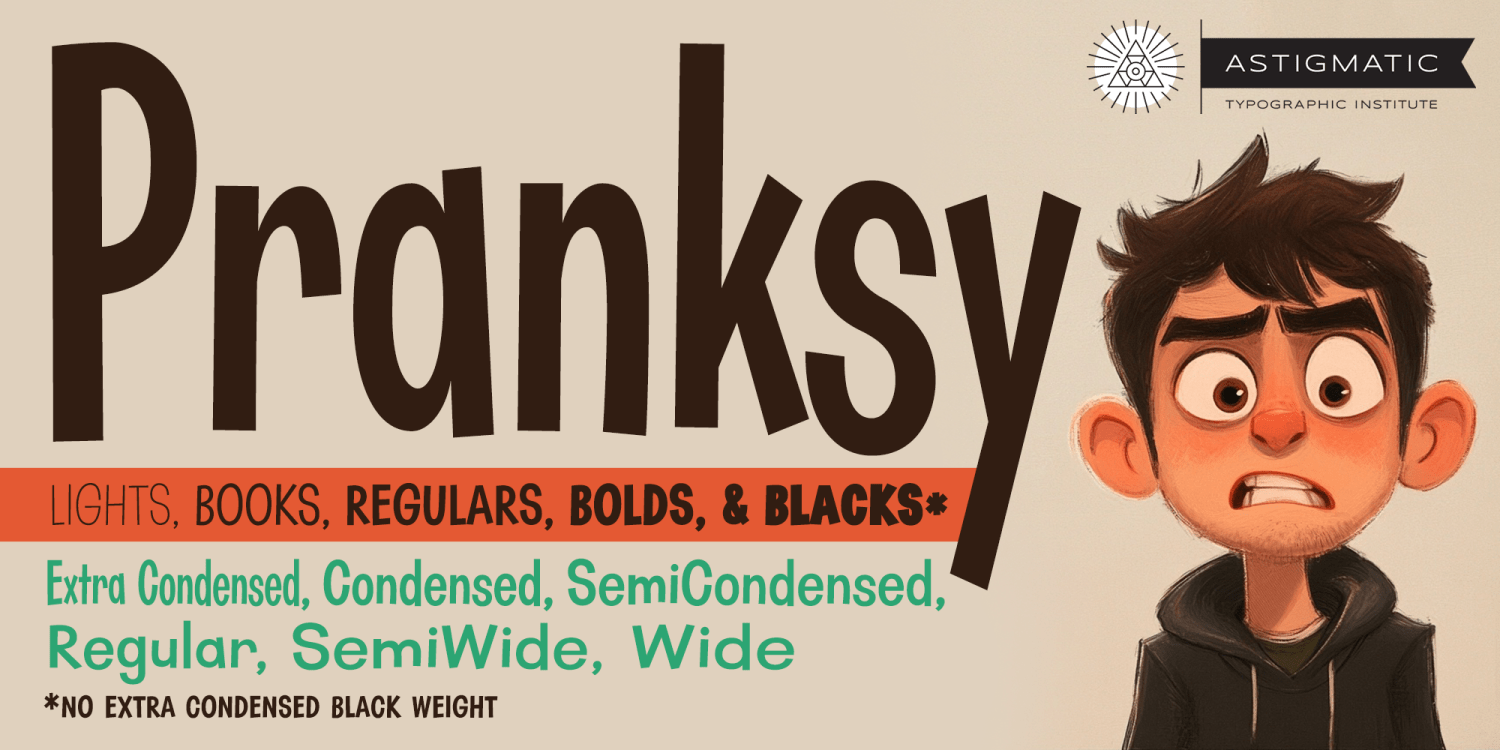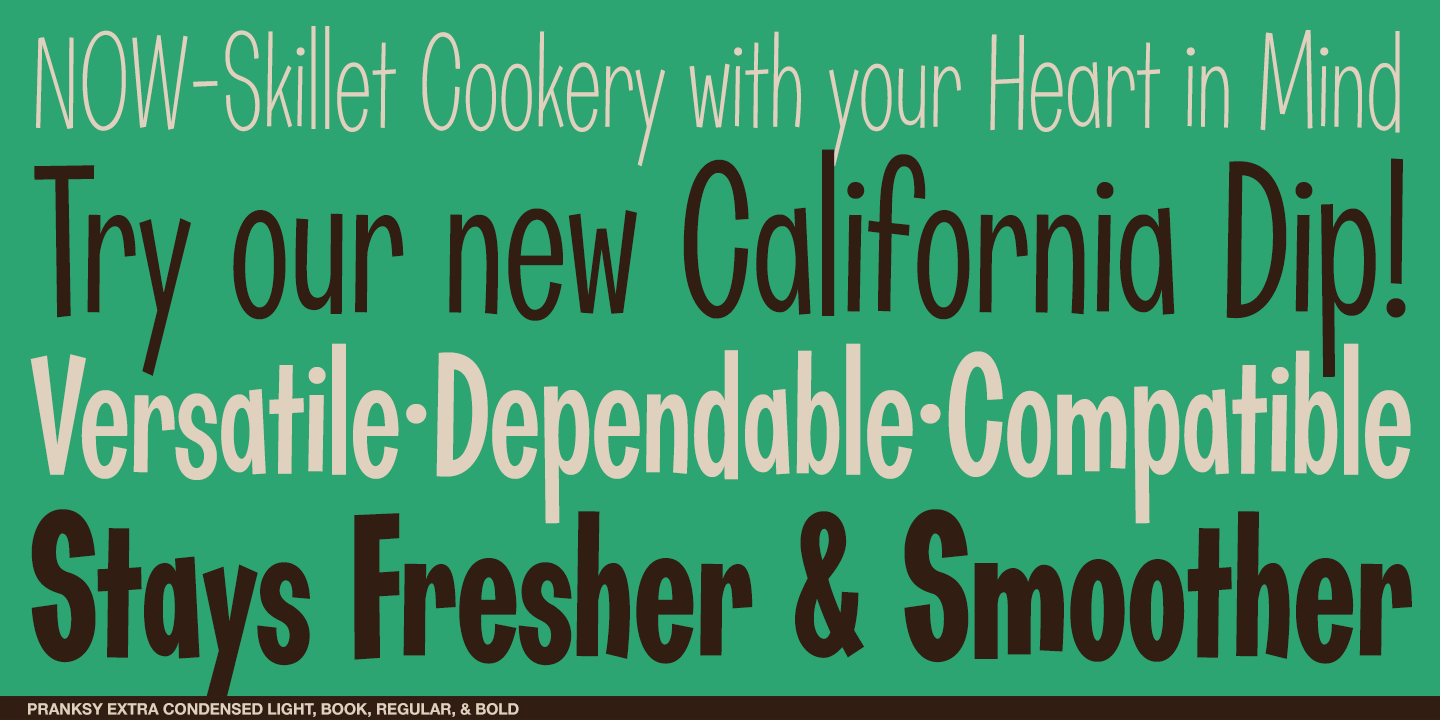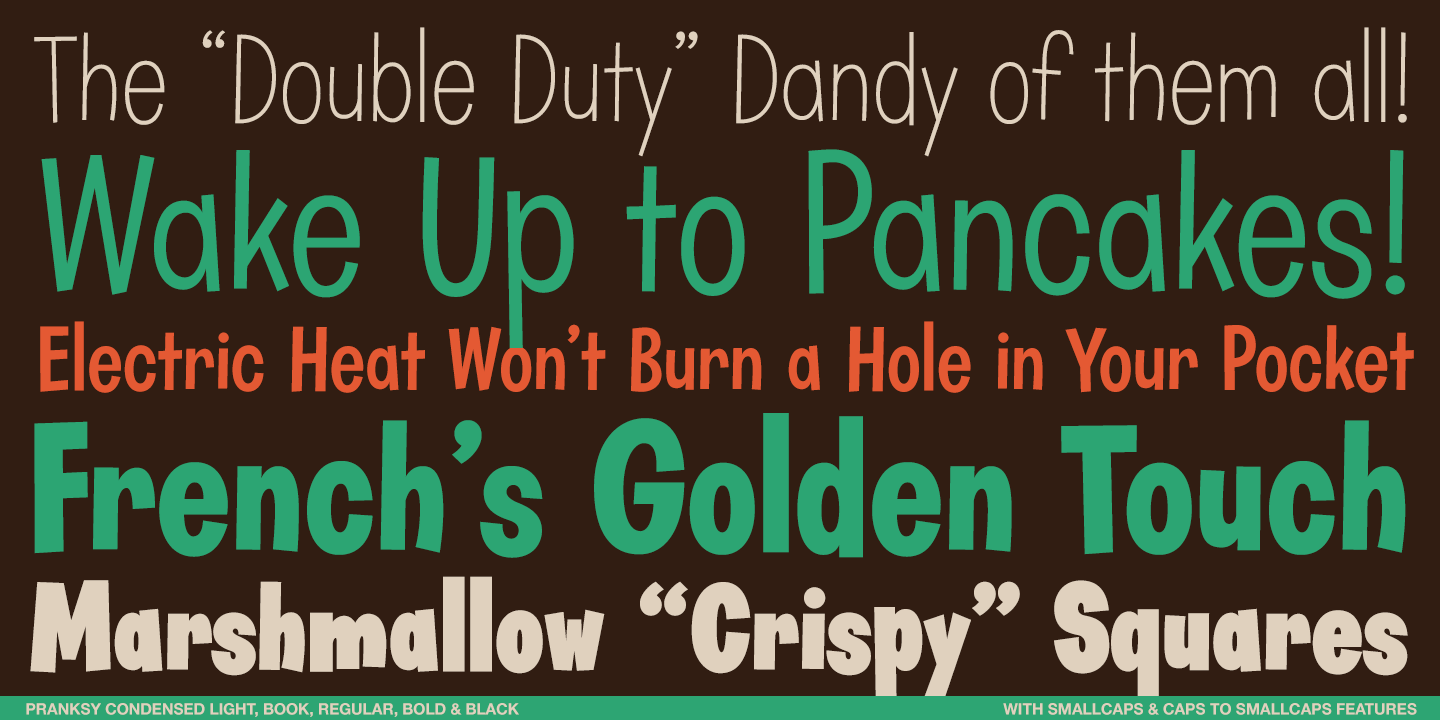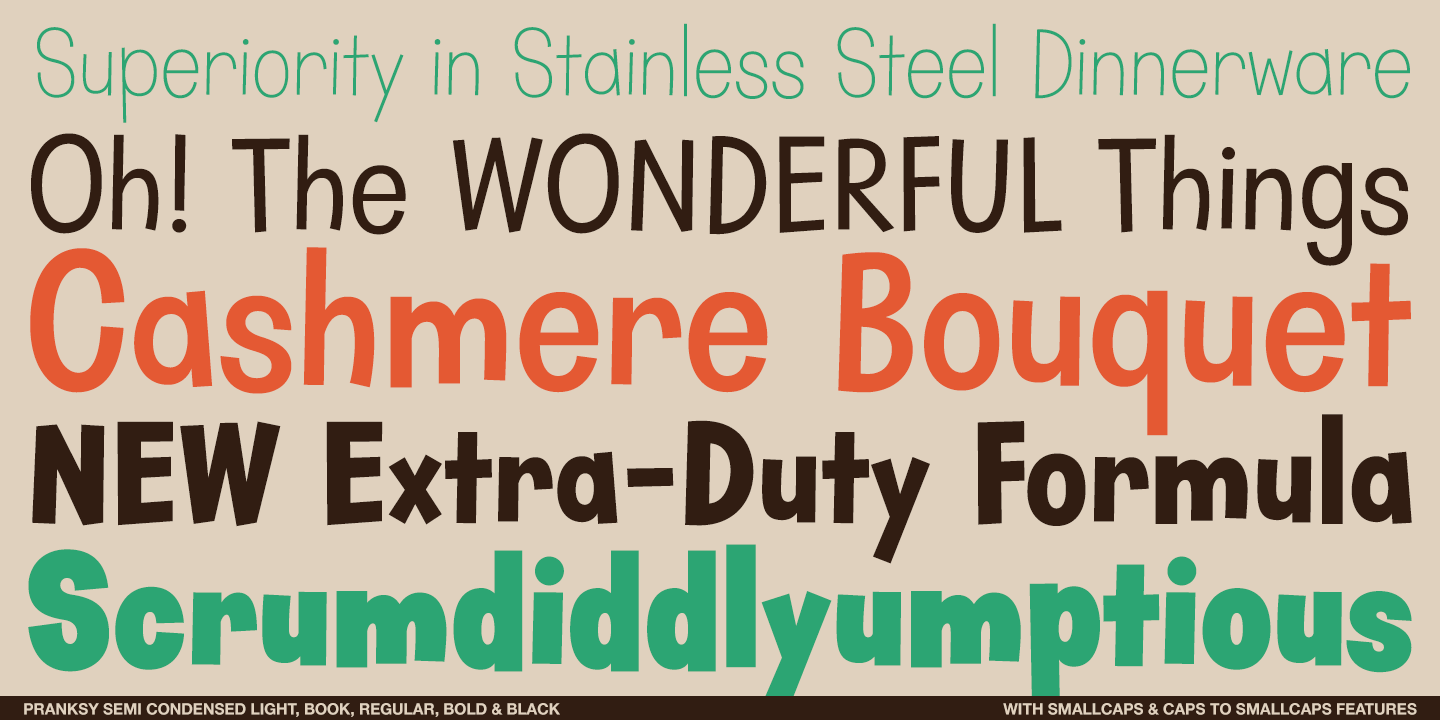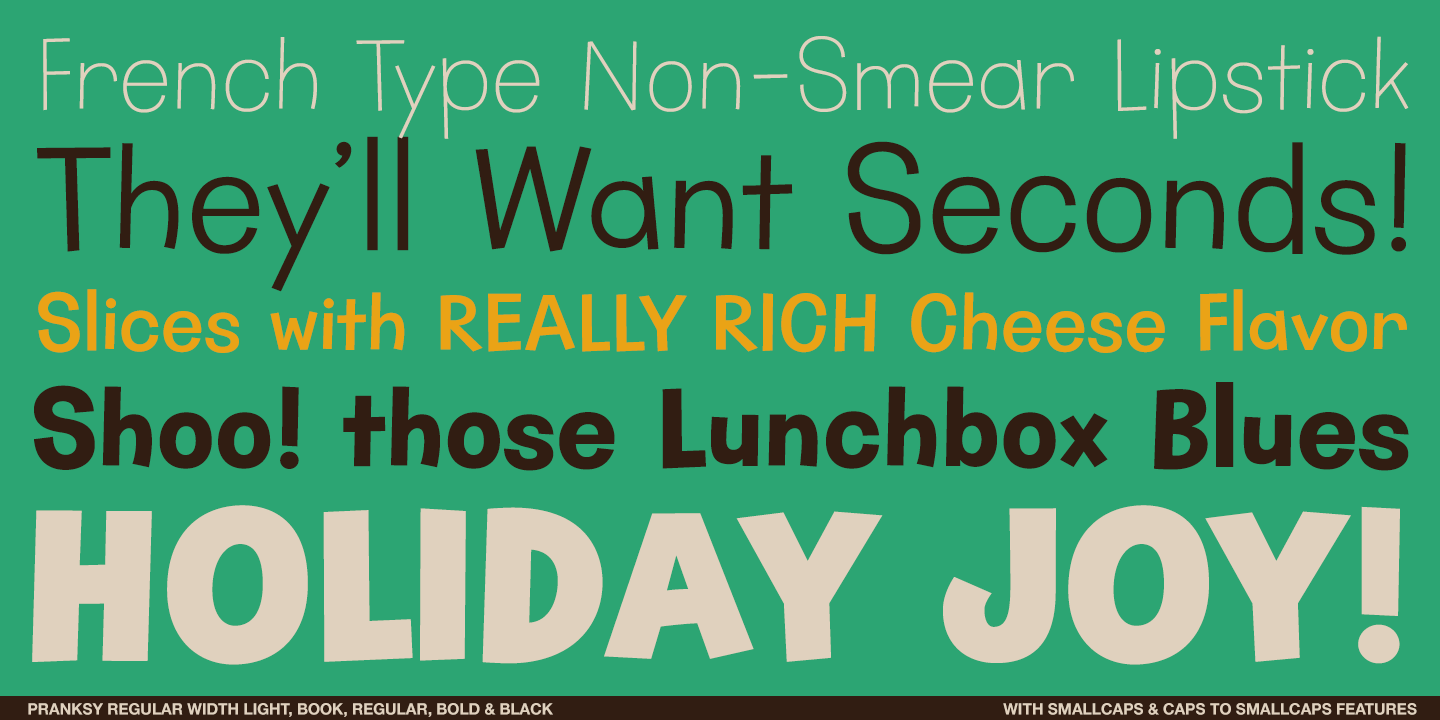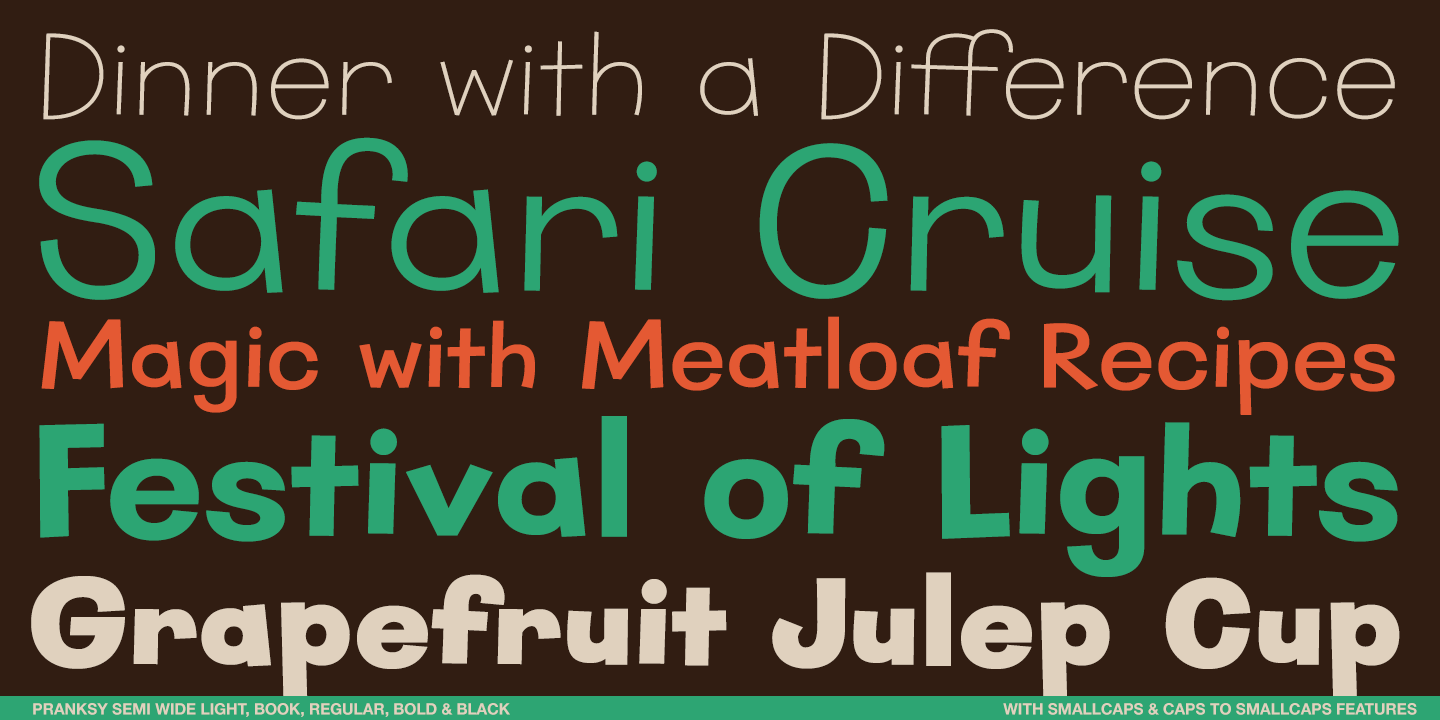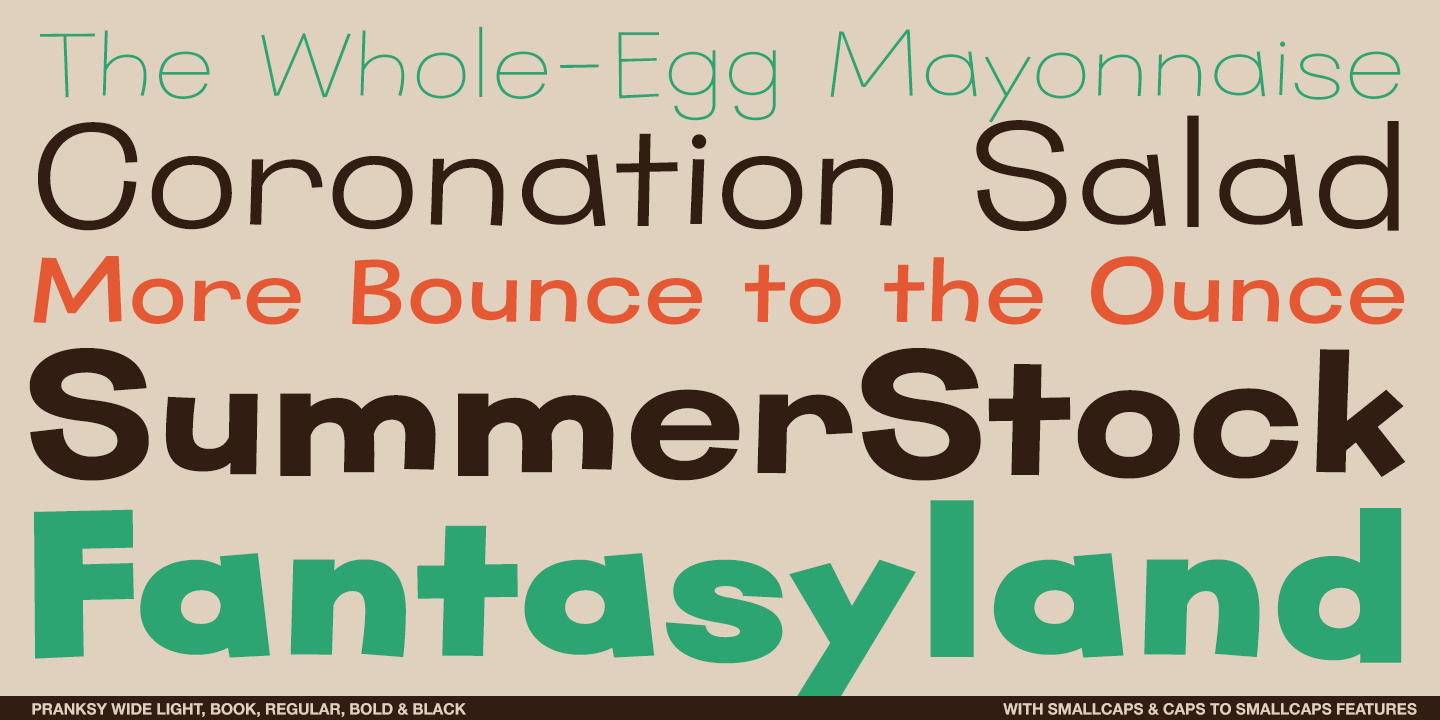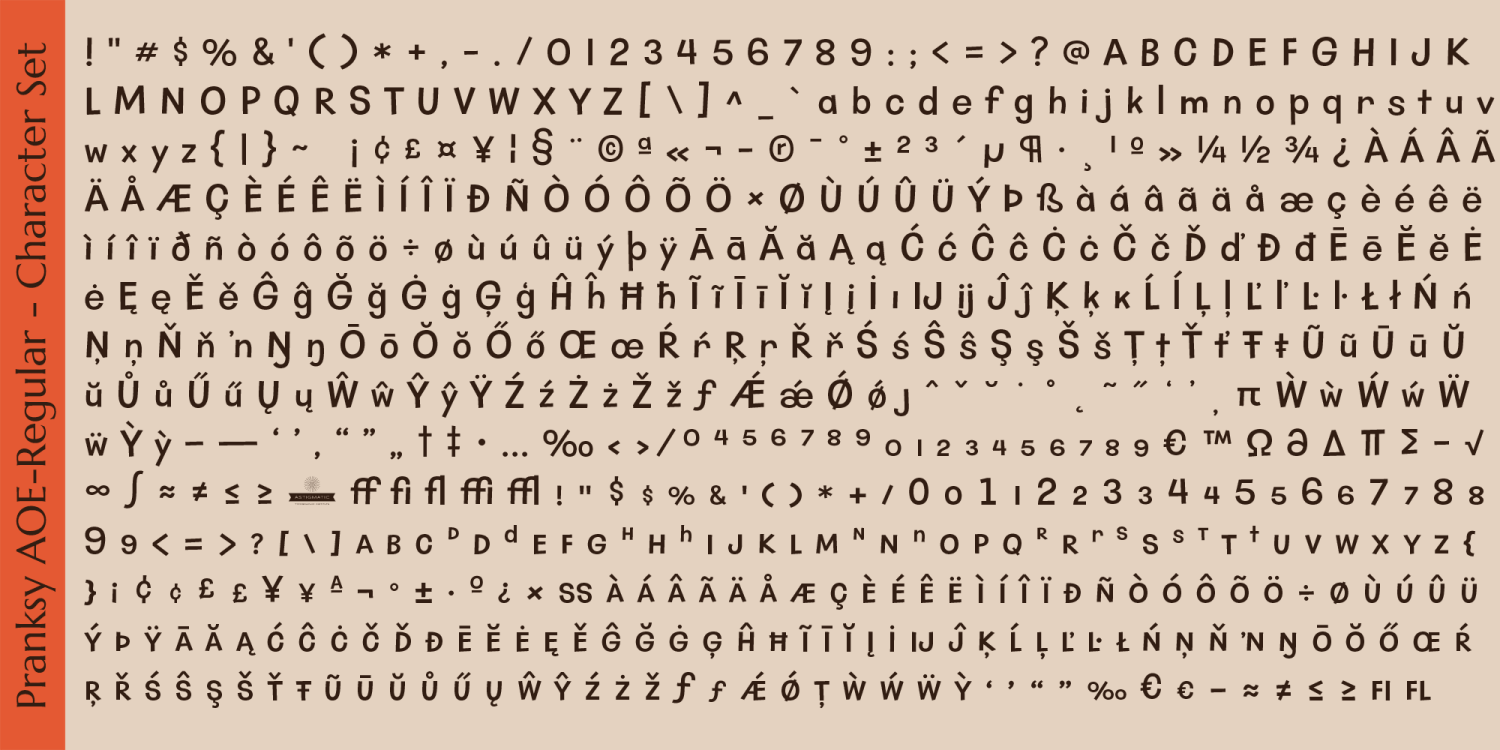
Pranksy AOE
The Pranksy AOE Family has been something I've been tinkering with for quite awhile...a mega-family full of playfulness and fun and frolic. Animated lettering styles speak to me, especially highly condensed ones, but I also love the idea of a wide range of widths and weights to be able to fully "play" in designs without having to change to a different font family.
Pranksy has bounce, it has swagger, and it was widths and weights to match. Extra Condensed, Semi Condensed, Regular, Semi WIde and Wide widths - each with Light, Book, Regular, Bold and Black weights (*except no Black for the Extra Condensed Family). Each comes with a smallcaps set, built to match the font so those program auto-smallcaps features that usually lighten or mess up weights can eat dirt.
I had a lot of fun making this font family, and I hope you have a lot of fun using it for your projects. I hope you enjoy it.